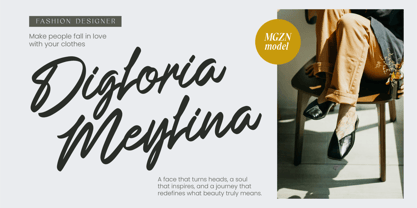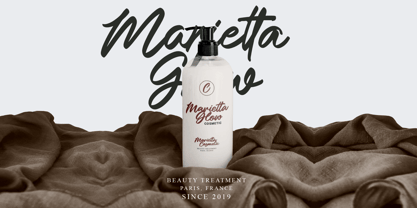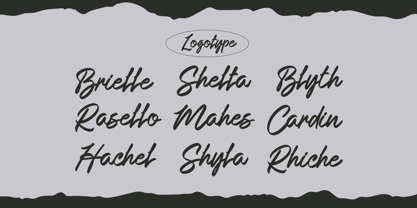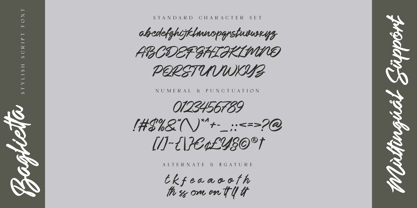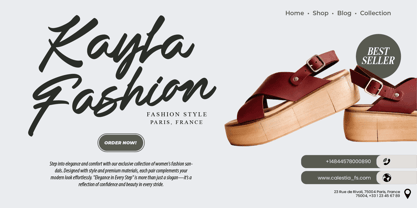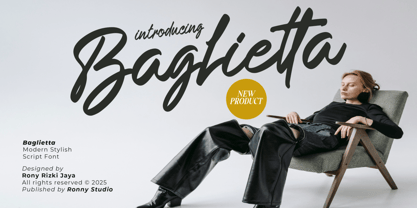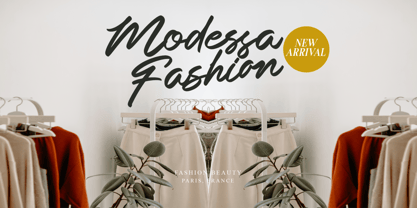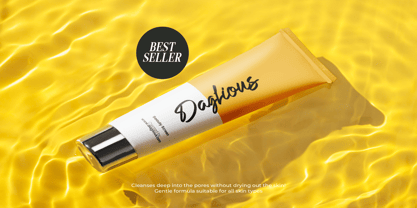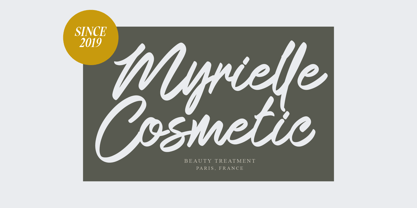
Baglietta
by Ronny Studio
The Baglietta Font Family was designed by Rony Rizki Jaya and published by Ronny Studio. Baglietta contains 1 styles.
Introducing Baglietta, a modern and stylish script font with smooth curves and an elegant flow. Designed to bring a sophisticated and contemporary feel, Baglietta is perfect for branding, fashion logos, wedding invitations, social media content, and more. Its natural handwritten style blends beauty and readability, making it an excellent choice for both display and body text in creative projects.
Designers: Rony Rizki Jaya
Publisher: Ronny Studio
Foundry: Ronny Studio
Design Owner: Ronny Studio